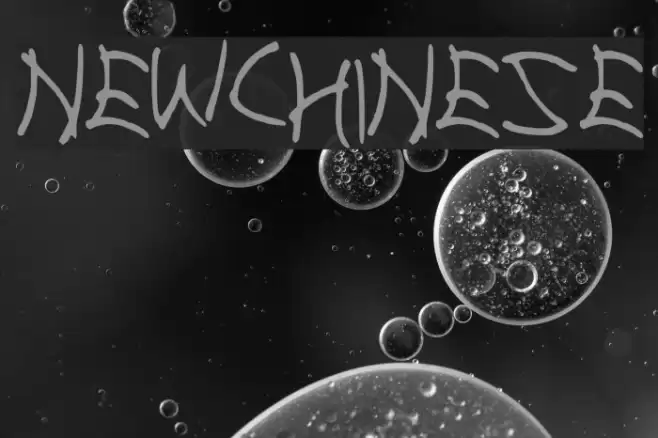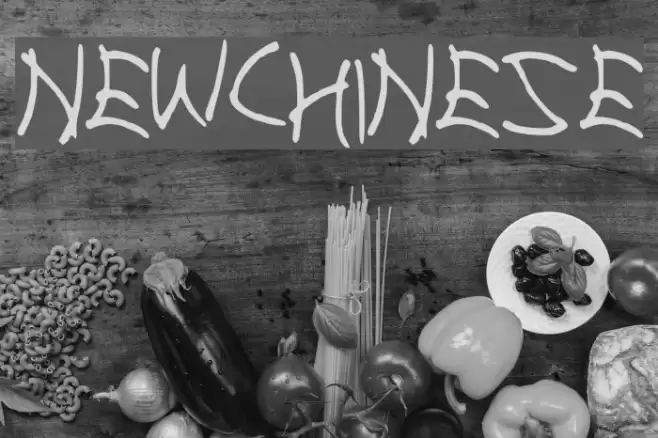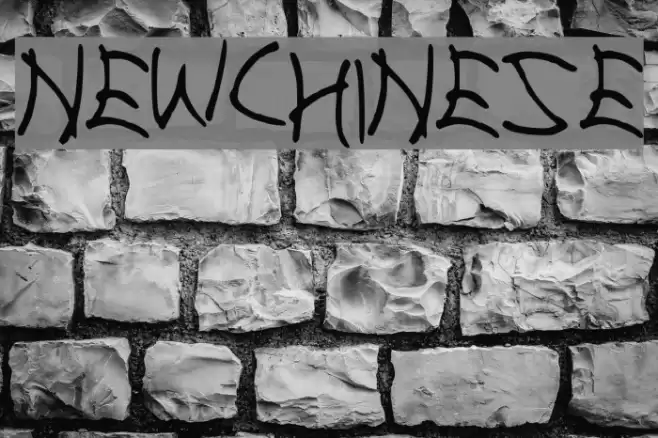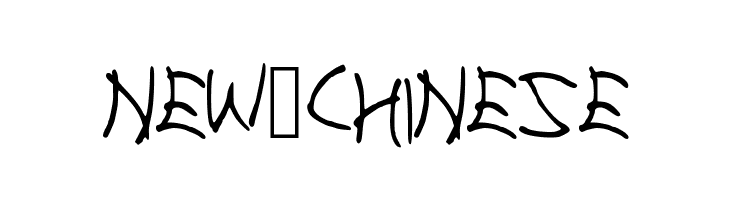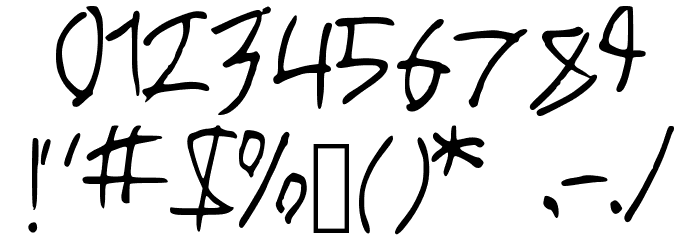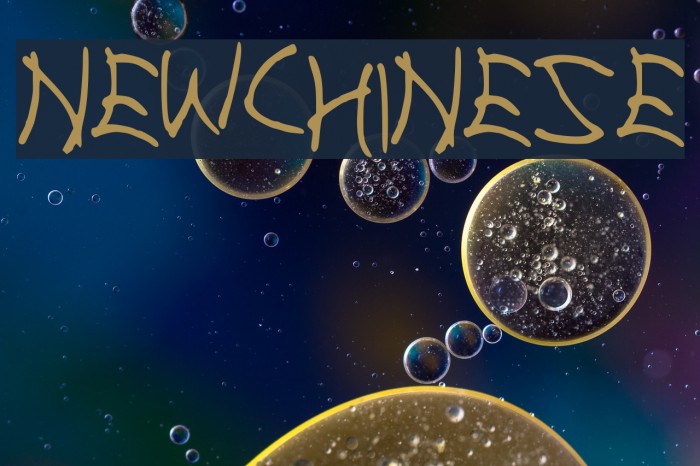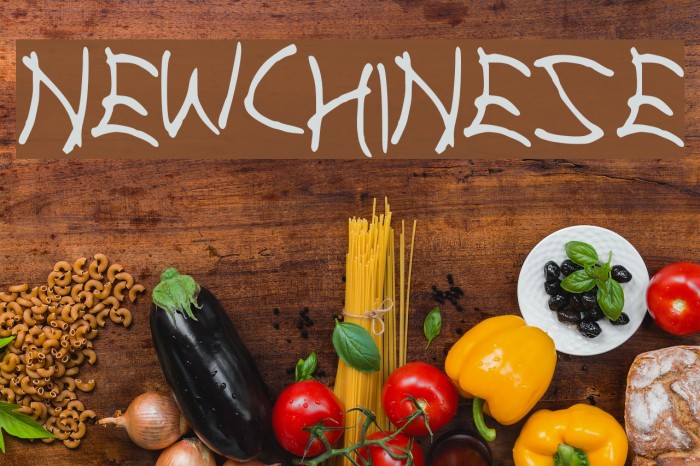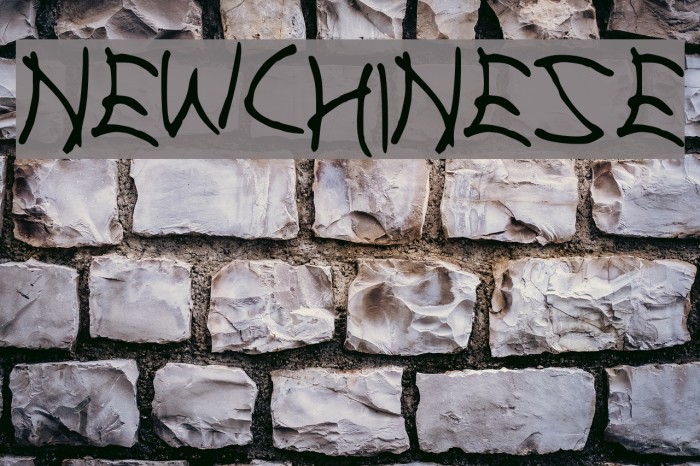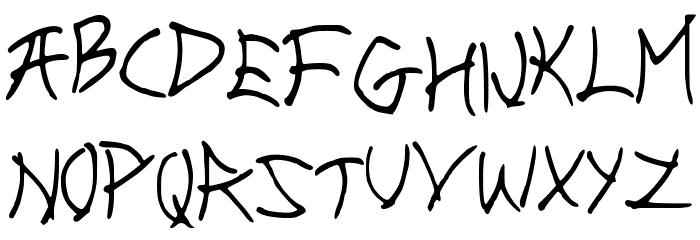
New_Chinese Font
This font exhibits a dynamic and energetic handwritten style, characterized by its bold and slightly irregular strokes. The letters are crafted with a sense of movement, giving an impression of spontaneity and creativity. The uppercase and lowercase letters maintain a consistent flow, while the numerals and special characters complement the overall aesthetic. The font's unique charm lies in its ability to convey a personal touch, making it ideal for projects that require a human element. Its informal yet legible design makes it versatile for various creative applications.
A dynamic handwritten font with bold, energetic strokes from Uncategorized fonts.
- Proposed Projects: Ideal for personal branding, creative projects, greeting cards, and artistic posters.
- Use Case: Logos, Headlines, Creative projects